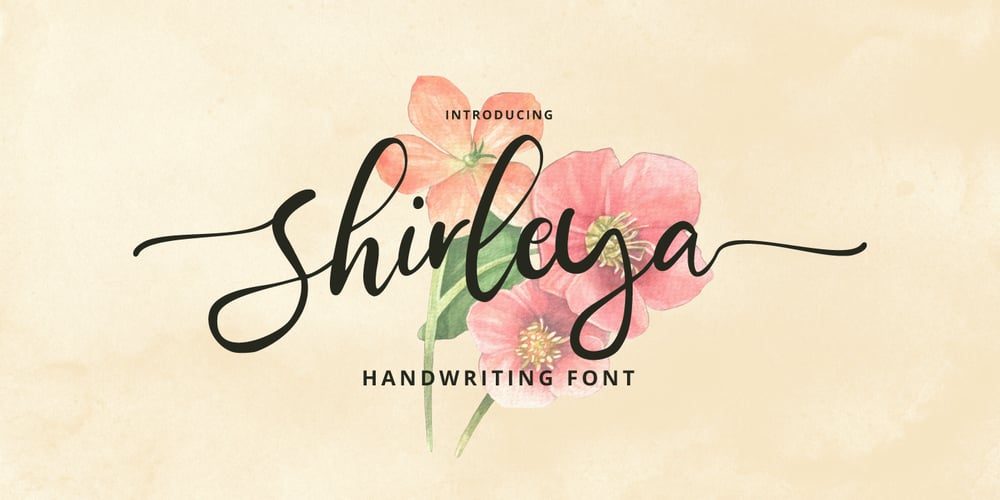
Shirleya Script Font Family was designed by Ferdiansyah and published by ijemrockart. Shirleya Script contains 1 styles and family package options. IntroducingShirleya Script with a handmade calligraphy style, decorative characters and a dancing baseline! So beautiful on invitation like greeting cards, branding materials, business cards, quotes, posters, and more!!Shirleya Script come with 300+ glyphs. The alternative characters were divided into several Open Type features such as Swash, Stylistic Sets, Stylistic Alternates, and Ligature. The Open Type features can be accessed by using Open Type savvy programs such as Adobe Illustrator, Adobe InDesign, Adobe Photoshop Corel Draw X version, And Microsoft Word. And this Font has given PUA unicode (specially coded fonts). so that all the alternate characters can easily be accessed in full by a craftsman or designer.Shirleya Script Features :Uppercase & Lowercase International Languange & Symbols Support Punctuation & Number PUA Unicode Range Standard Ligatures Discretionary Ligatures Stylistic Alternates Stylistic Set 01-07:Shirleya Script.OTFShirleya Script.TTF,Thank you,